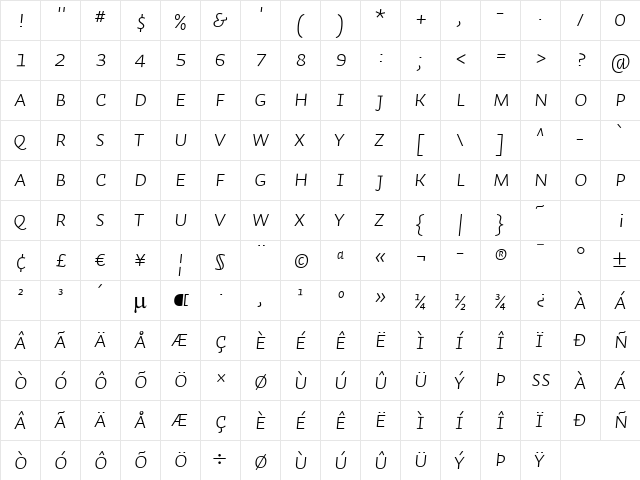
Auto 3 Light Italic SmCp
Design Context for Auto 3 Typeface
Auto 3 offers clean, dependable letterforms without strong stylistic allegiance, making it a practical choice for designers who need flexibility. Its italic angle brings a sense of urgency and motion to the letterforms. The delicate stroke weight brings airiness and refinement to layouts.